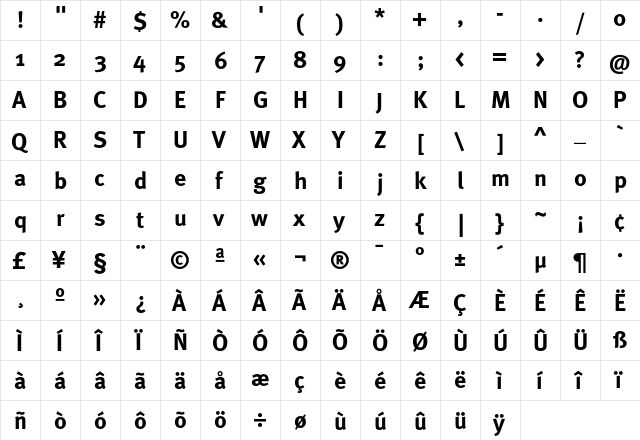
MetaBoldTurk Roman
MetaBoldTurk takes a measured approach to typography — its balanced proportions and neutral character make it a reliable workhorse for both digital and print work. The heavy weight commands attention and anchors typographic hierarchies.